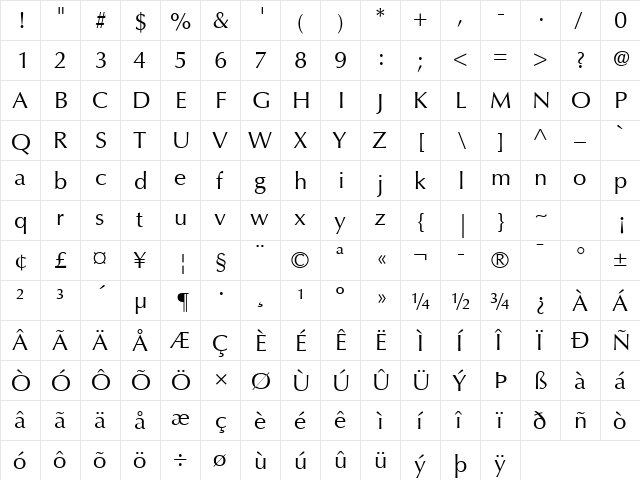
Optima LT Std Regular
| Designer | Hermann Zapf |
Design Context for Optima LT Std Typeface
Optima LT Std takes a measured approach to typography — its balanced proportions and neutral character make it a reliable workhorse for both digital and print work. The delicate stroke weight brings airiness and refinement to layouts.